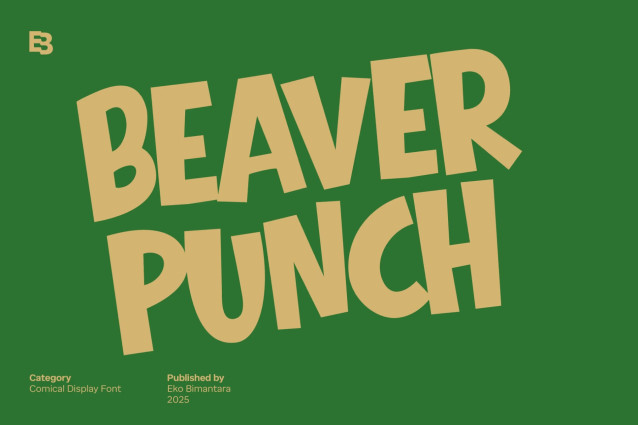
Beaver Punch Font
Beaver Punch Font is a chunky, comic, and cartoon display font. With its neat and joyful personality, this font will enhance any project you wish to create!